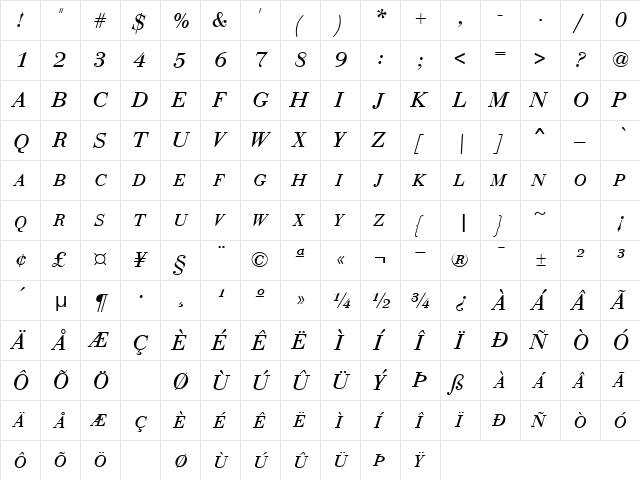
BodoniExpert Italic
Design Context for BodoniExpert Typeface
BodoniExpert takes a measured approach to typography — its balanced proportions and neutral character make it a reliable workhorse for both digital and print work. The slanted form adds forward momentum and visual energy.
Pro Tip: Use BodoniExpert for emphasis, pull quotes, and subheadings where its slanted energy can add rhythm to the layout.